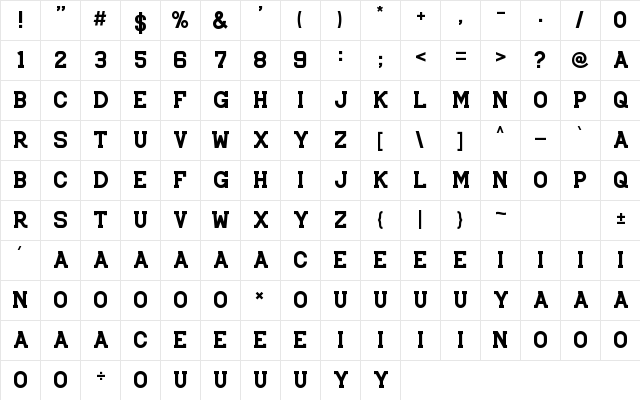
Brader John Regular
Design Context for Brader John Typeface
Brader John takes a measured approach to typography — its balanced proportions and neutral character make it a reliable workhorse for both digital and print work.
Pro Tip: Use Brader John in both headline and body roles to test its range before committing to a single application.